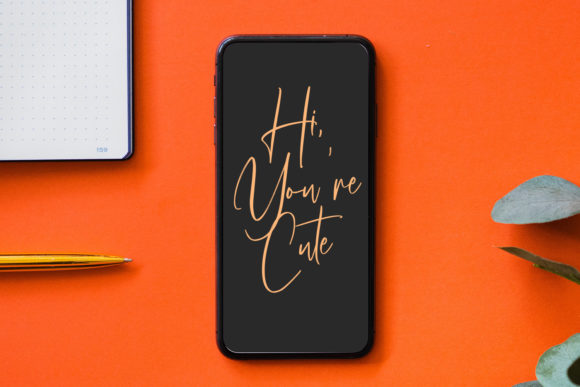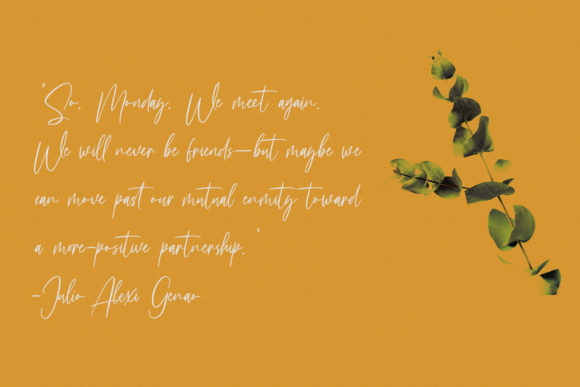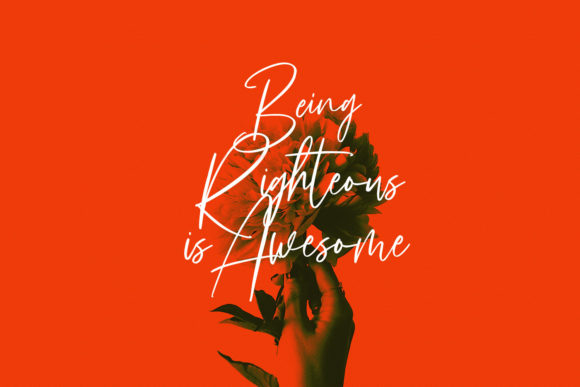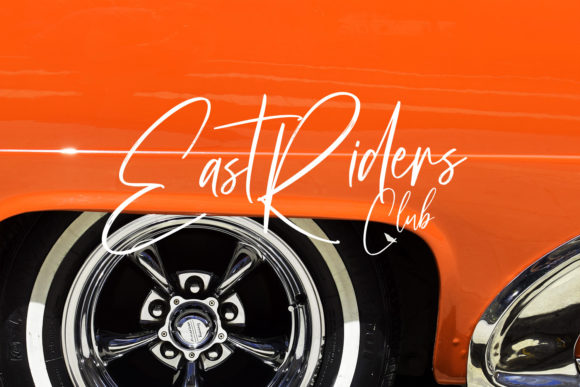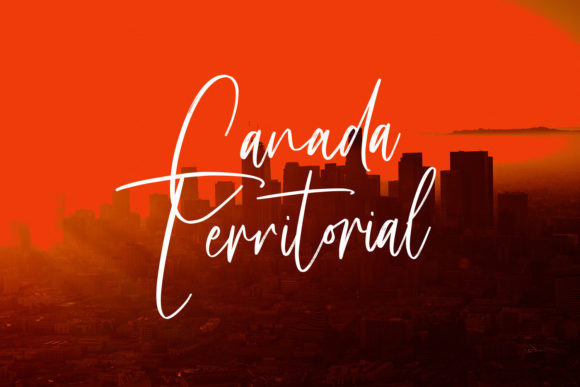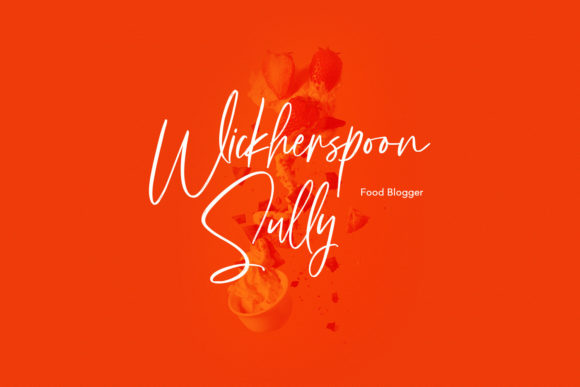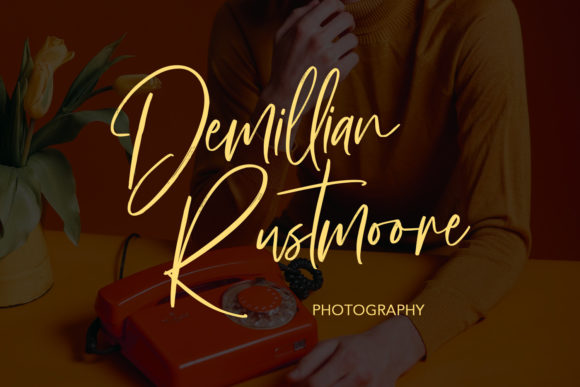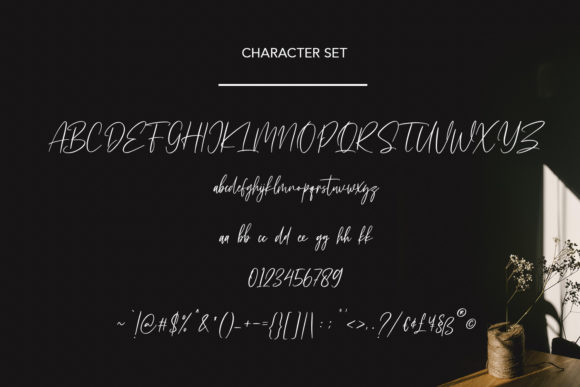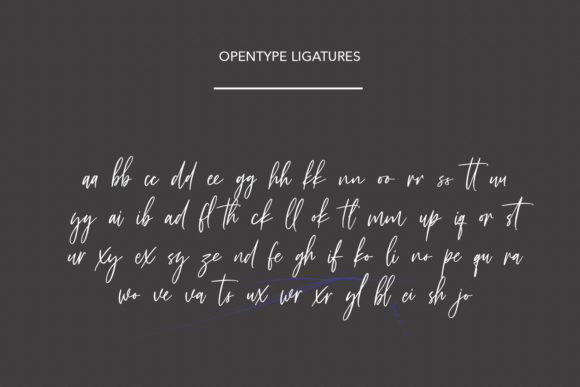
Sallymoores Font
About Sallymoores Font
Sallymoores is a fashionable, light and asymmetrical script font. Not too thin and not too thick, balanced and varied, Florania was designed to enhance the beauty of your projects.